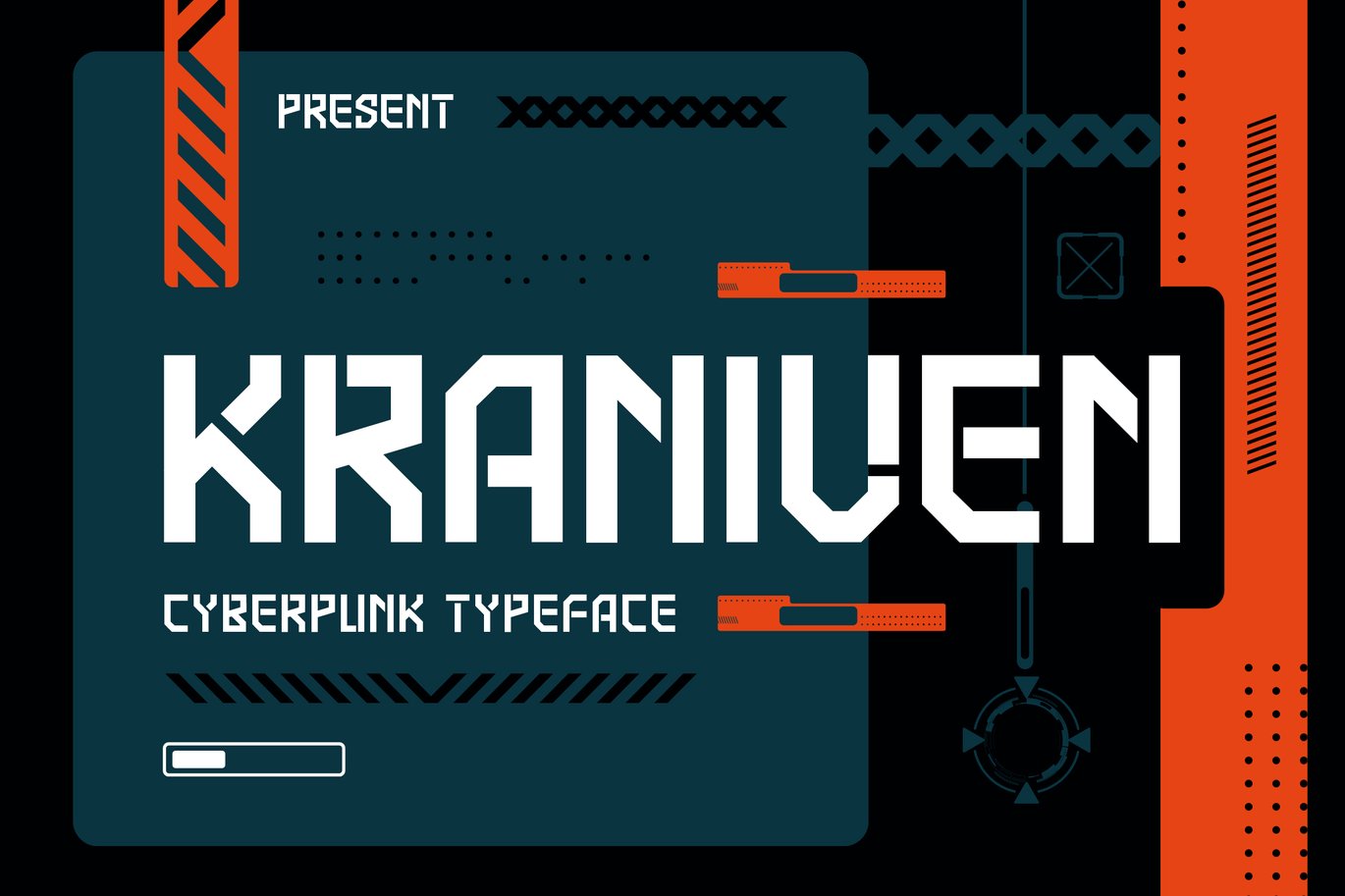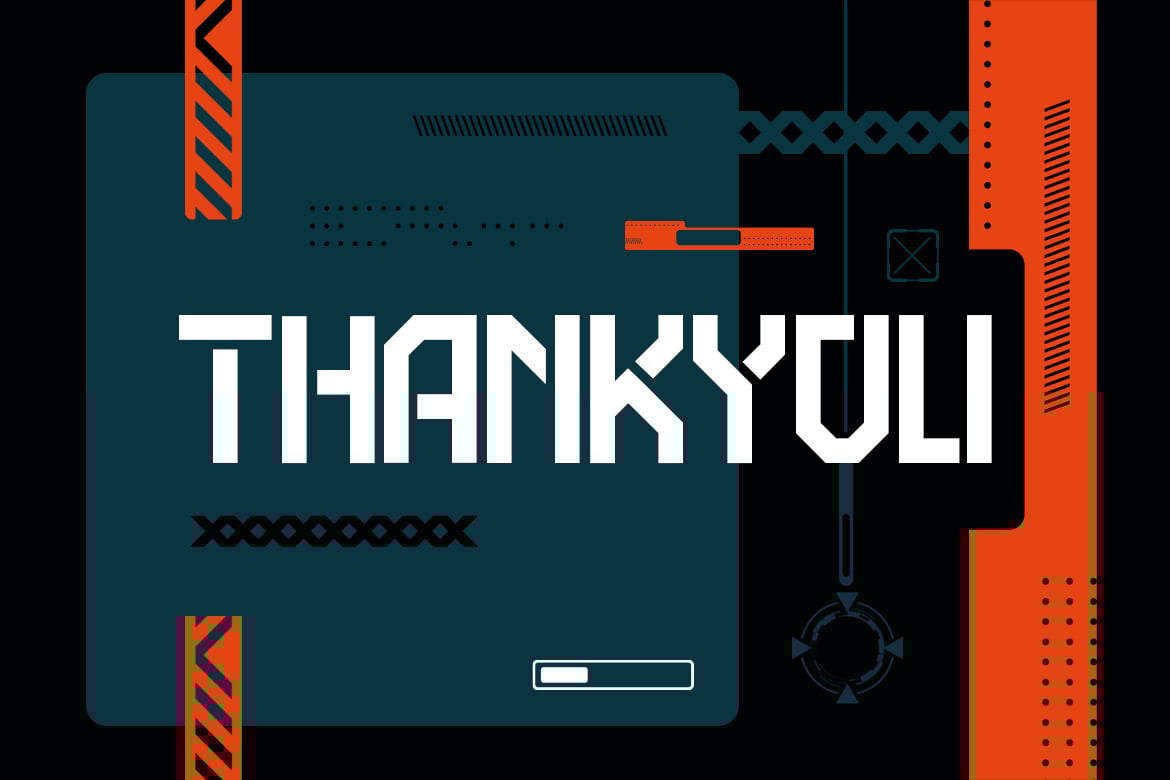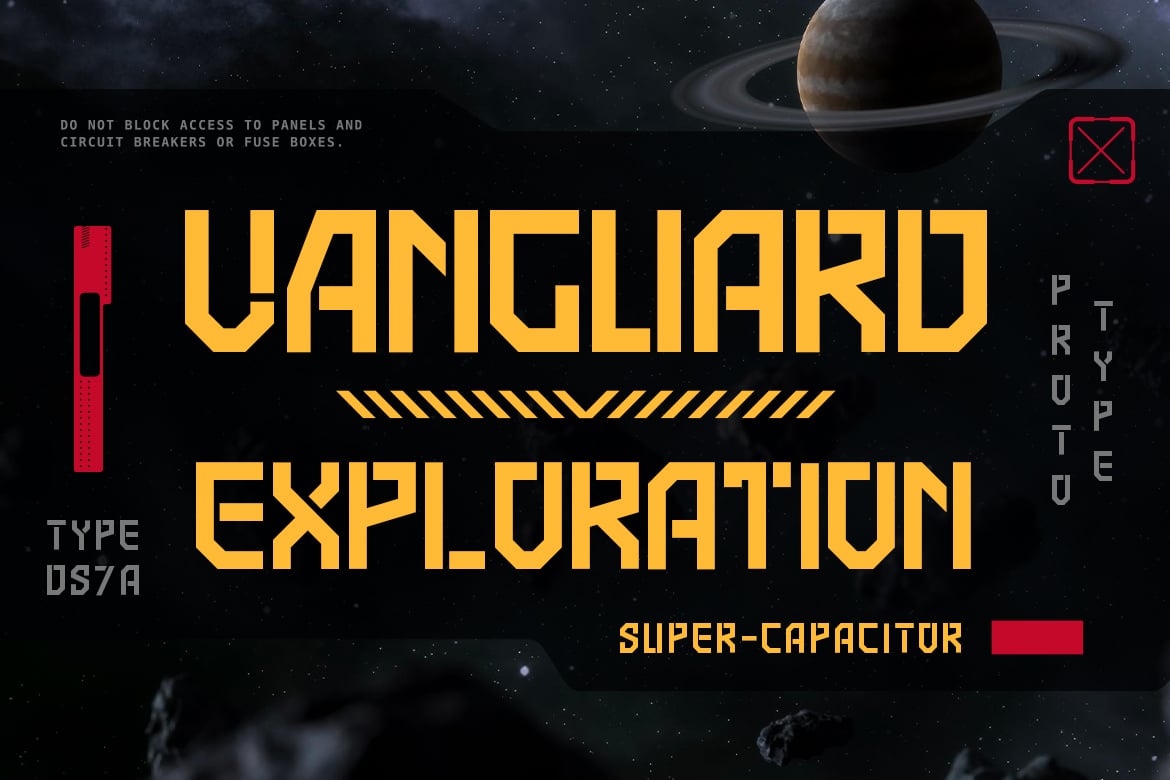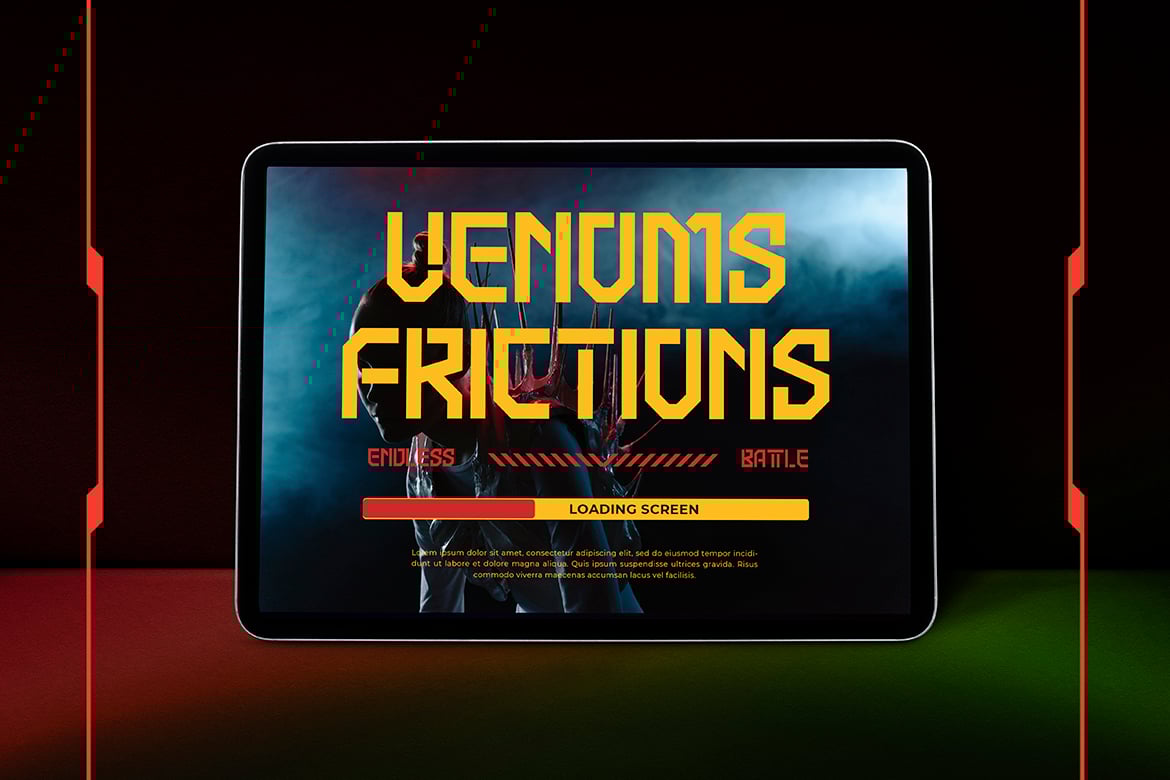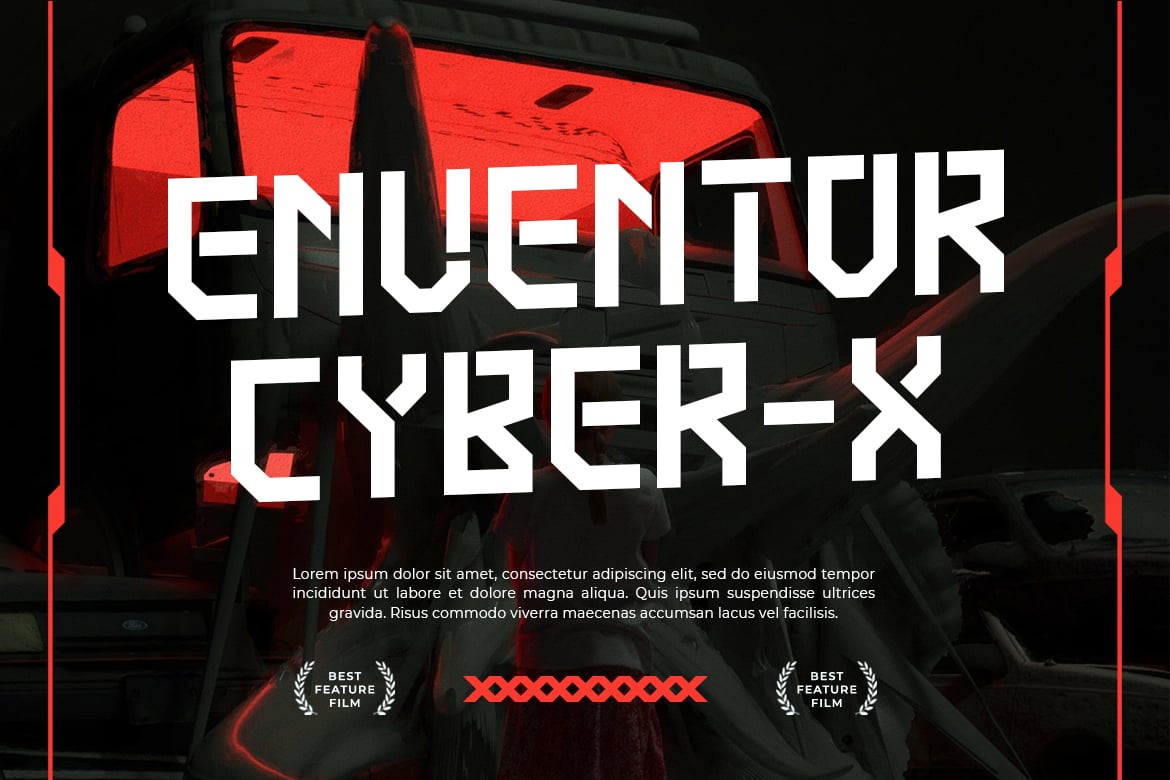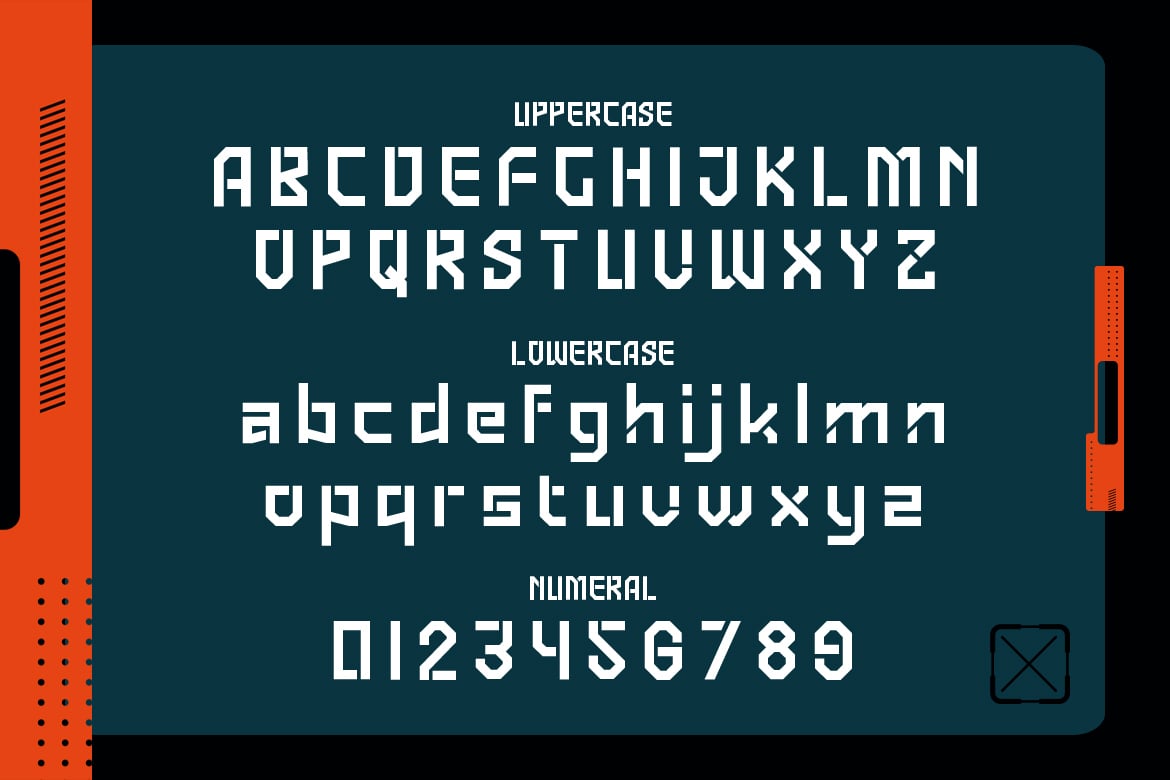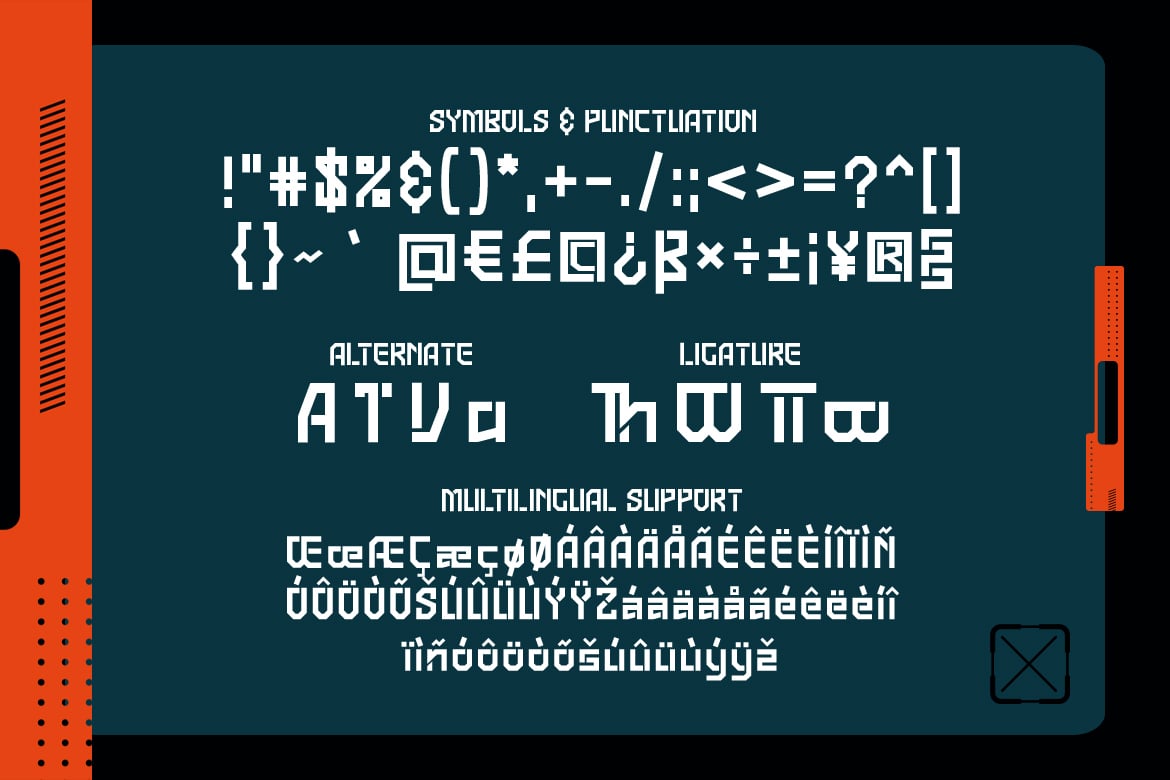
Kraniven – Cyberpunk Typeface
Introducing “Kraniven” – a cyberpunk typeface that immerses your designs in the gritty, futuristic world of cyberpunk culture, offering a bold and dynamic typographic solution.
With its sharp angles and intricate details, “Kraniven” captures the essence of cyberpunk aesthetics, evoking the neon-lit streets and high-tech dystopias of science fiction. Whether you’re designing game interfaces, movie titles, tech blogs, or album covers, this font injects your projects with an unmistakable cyberpunk vibe.
Embrace the edgy allure of “Kraniven” as it effortlessly enhances your creations. With its glitchy accents and futuristic style, this typeface transports your audience to a cybernetic world filled with neon lights and urban decay, ensuring that your designs make a powerful statement.
Step into the cybernetic future with “Kraniven” and let your creativity run wild with its electrifying and avant-garde style.